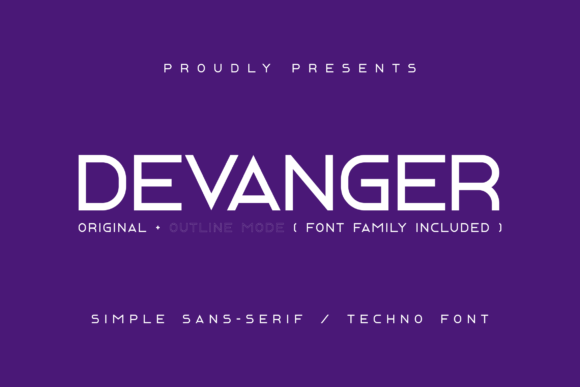
Introducing Devanger, a sans-serif font that embodies the vibrancy of neon lights. Created by Monoletter, Devanger is a modern and eye-catching font that demands attention. Its clean lines and contemporary design make it perfect for creating sleek and modern designs that exude sophistication.
**The Perfect Canvas for Your Creative Vision**
With Devanger, you can bring your creative ideas to life in a visually striking manner. Its sharp edges and bold strokes make it an ideal choice for branding, editorial design, or any project that demands a touch of class. Whether you're designing logos, posters, or website layouts, Devanger will elevate your designs to new heights.
**Embrace the Neon Revolution**
Harness the energy and allure of neon lights with Devanger. This font captures the essence of modern urban living, evoking a sense of excitement and intrigue. Its unique letterforms create a dynamic, eye-catching effect that will leave a lasting impression on your audience.
**A Font That Speaks Volumes**
Devanger is more than just a font; it's a statement. Its bold and assertive presence commands attention, making it an ideal choice for creating headlines, titles, and other elements that demand immediate impact. Whether you're looking to make a splash on social media or create a memorable logo, Devanger is guaranteed to deliver.
**Unleash Your Creativity**
Devanger is a font that sets your creativity free. Its clean lines and contemporary design provide a solid foundation for your designs, allowing you to explore your imagination without boundaries. Experiment with different colors, sizes, and combinations to create truly unique and captivating designs that will resonate with your audience.
**The Perfect Choice for Modern Designers**
In a world saturated with noise and visual clutter, Devanger cuts through the chaos with its sleek and sophisticated design. If you're a designer looking to elevate your designs and leave a lasting impression, Devanger is the perfect choice for you. Its versatility and visual appeal make it the go-to font for creating modern and attention-grabbing designs.